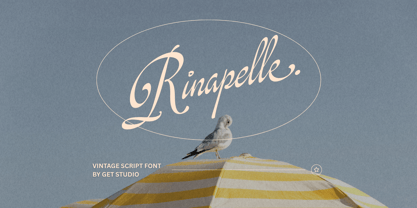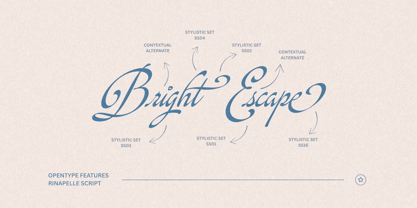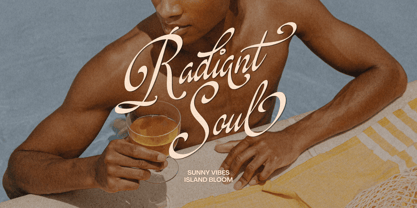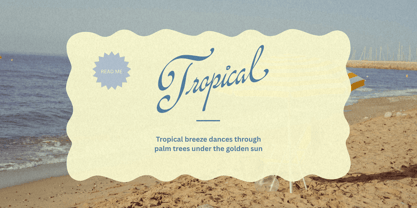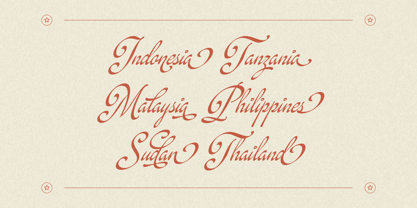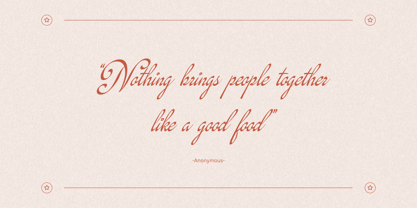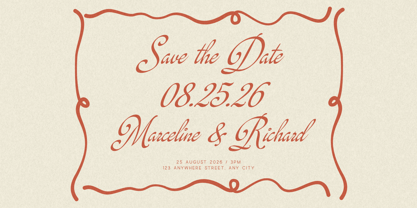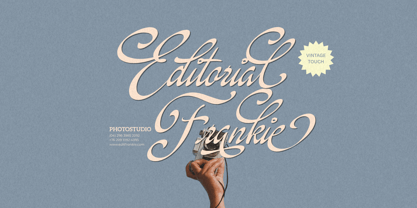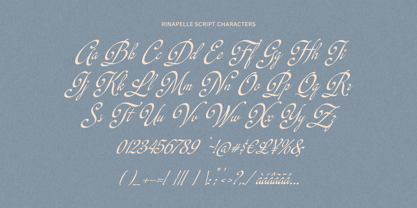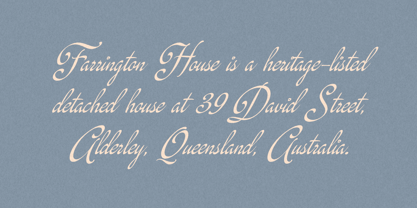
Rinapelle Script
von Get Studio
Die Schriftfamilie Rinapelle Script wurde von Hermansyah entworfen und von Get Studio veröffentlicht. Rinapelle Script enthält 1 Stile. Mehr über diese Familie
Rinapelle Script is a charming tribute to timeless elegance — a vintage script font that dances with grace and sophistication. Crafted with silky-smooth curves and flowing connections, Rinapelle brings the allure of handwritten nostalgia into the modern world.
Whether you’re designing for luxury branding, wedding stationery, or seaside cafes, Rinapelle tells a story in every stroke. With an abundance of thoughtfully designed alternates and ligatures, you can effortlessly create unique compositions that feel both personal and polished.
From classic monograms to poetic quotes, Rinapelle whispers romance, wanderlust, and a touch of sun-soaked nostalgia. Let your words float on the breeze — elegant, gentle, and unforgettable.
Designer: Hermansyah
Foundry: Get Studio